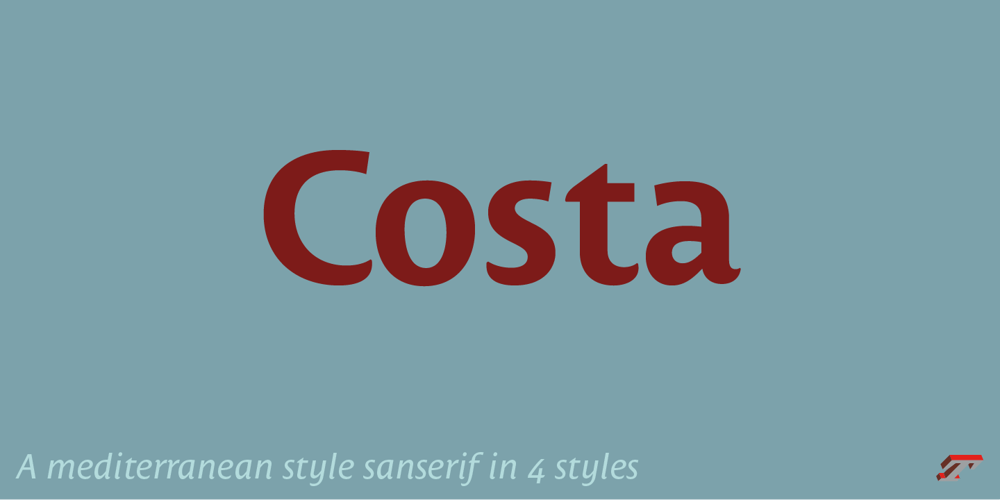
Costa Std Font Family was designed by Jean François Porchez and published by Typofonderie. Costa Std contains 4 styles and family package options. A mediterranean style sanserif in 4 stylesThe original idea of Costa was to create a contemporary mediterranean typeface style. Costa is a synthesis of the purity, as found on Greek capitals, and softness, found in Renaissance scripts. First thing was the design concept that take its roots on the Chancery script. Such writing style appeared during Italian Renaissance. Later few typefaces have been developed from such cursive models. Today most serifed typeface italic take their roots on such triangular structure we can find on gylphs like the n, p, or d.The Costa capitals remains close to pure sanserif models when the lowercases features an ending serif on many letters like the a, n, d, etc. This ending serif being more like a minimal brush effect, creating a visual contrast and referencing the exoticness of the typeface. Knowing that the Costa typeface family began life in the 90s as a bespoke typeface for Costa Crociere, an Italian cruise company — it suddenly makes sense and explains well why Jean François Porchez focused so much on Italian Chancery mixed to a certain exotism.The curvy-pointed terminals of the Costa n can obviously get find on other glyphs, such as the ending of the e, c and some capitals. So, the sanserif looks more soft and appealing, without to be to pudgy or spineless. The general effect, when set for text, remains a sanserif, even not like Rotis Semiserif. Costa is definitly not a classical typeface, or serif typeface which convey past, tradition, historicism as Garamond does beautifully. Because of the Costa crocieres original needs, Costa typeface was designed to be appropriate for any uses.Anytime you’re looking for good mood, qualitative effects, informal tone, cool atmosphere without to be unconvential or blowzy, Costa will convey to your design the required chic and nice atmosphere, from large headlines sizes, brands, to small text sizes. It’s a legible typeface, never boring. A style without neutrality which doesn’t fit comfortably into any typeface classification! Does it proves the novelty of its design and guarantees as well as its originality? Its up to you to be convinced.Barcelona tripOriginally not planned, this need appeared because of a trip to Barcelona at the time of the project, where Jean François was giving a lecture. He wanted to pay an homage to that invitation to create something special. So, he designed during his flight some variations of the Spanish Ch, following ideas developed by the Argentinian type designer Rubén Fontana for his typeface called Fontana ND (published by the Barcelona foundry Bauer). Then, he presented during his lecture variations and asked to the audience which design fit the best to their language. They selected the design you can find in the fonts today.Read more about pairing CostaType Directors Club 2000Typographica: Our Favourite Typefaces 2004